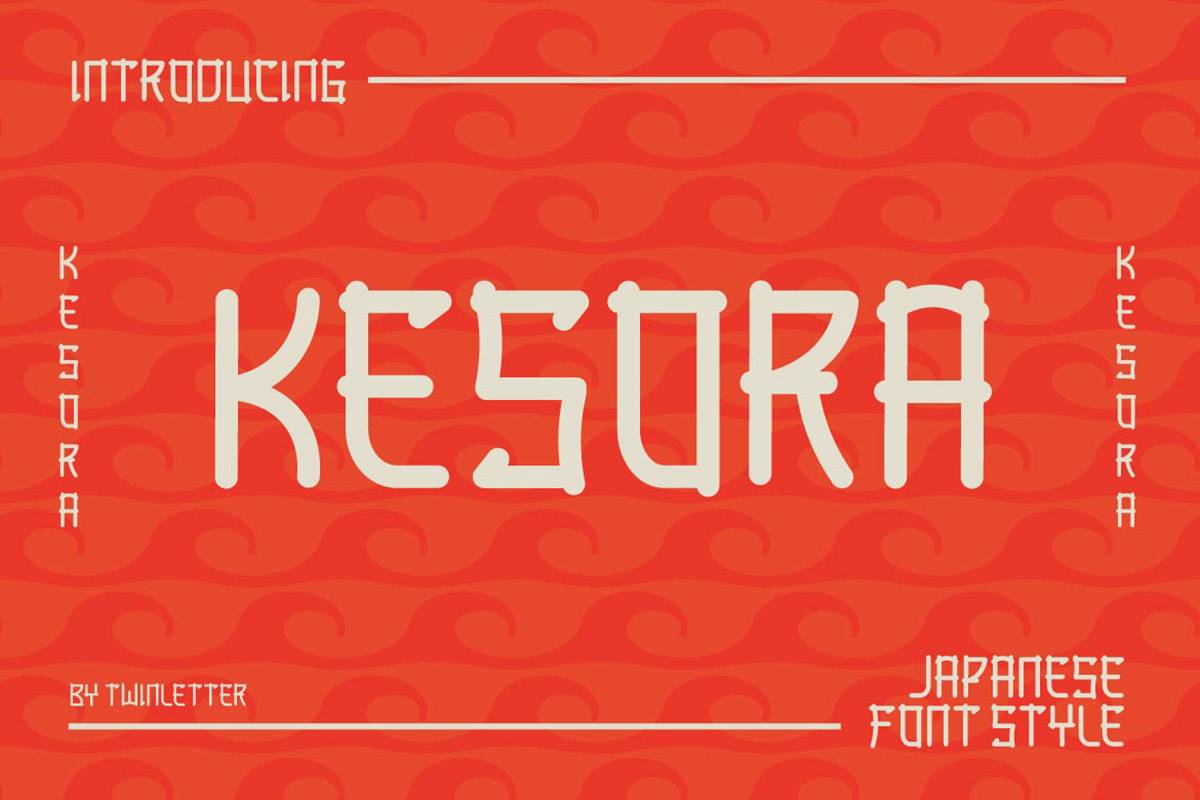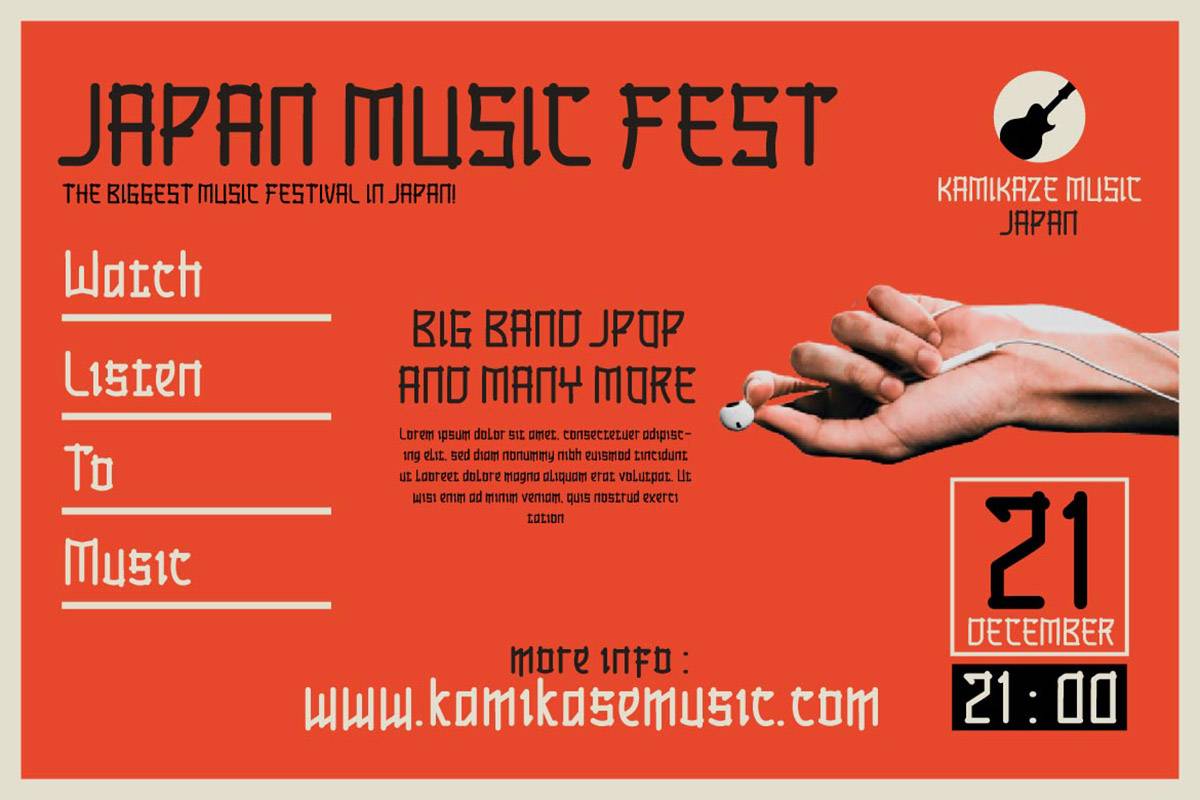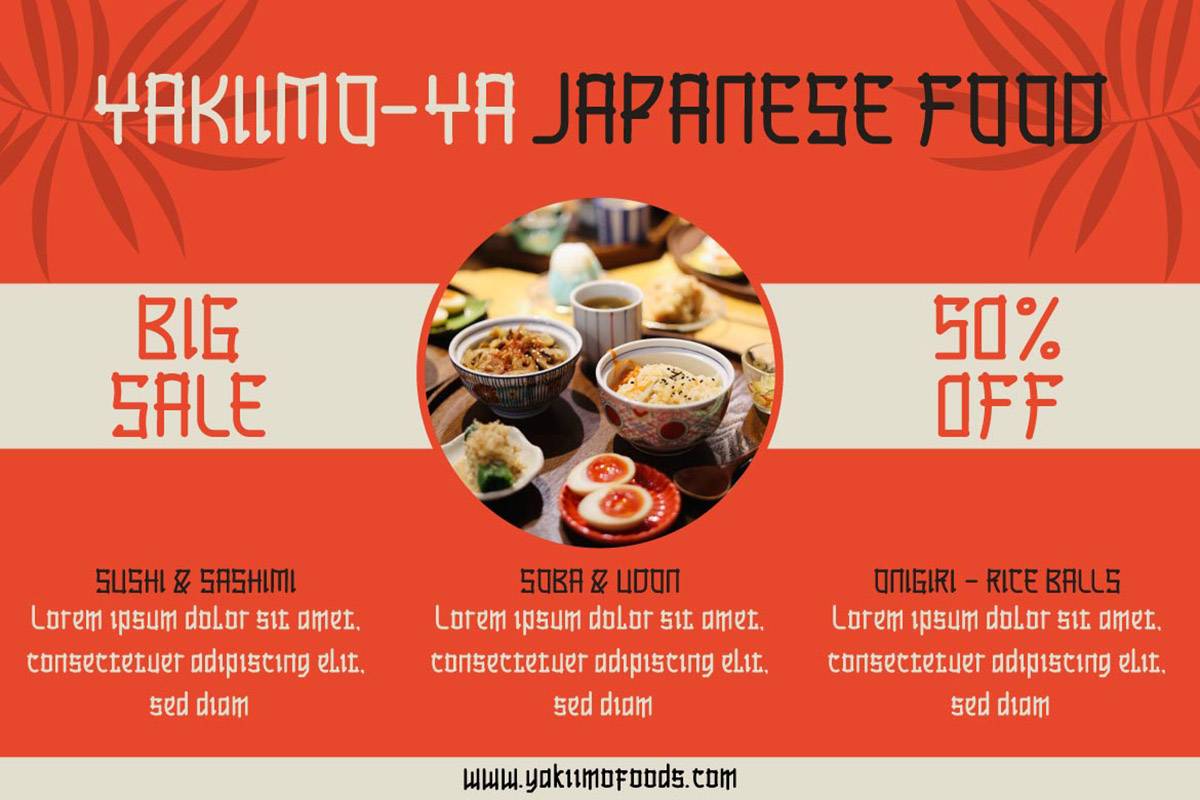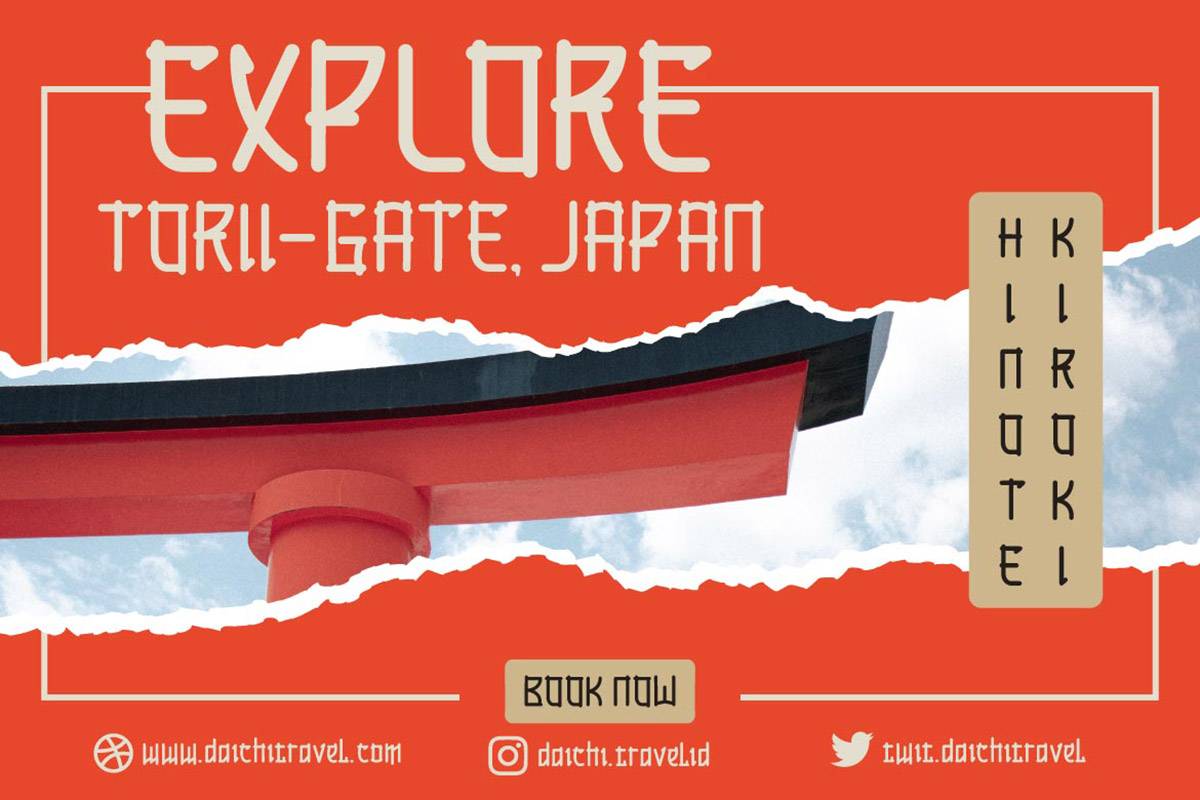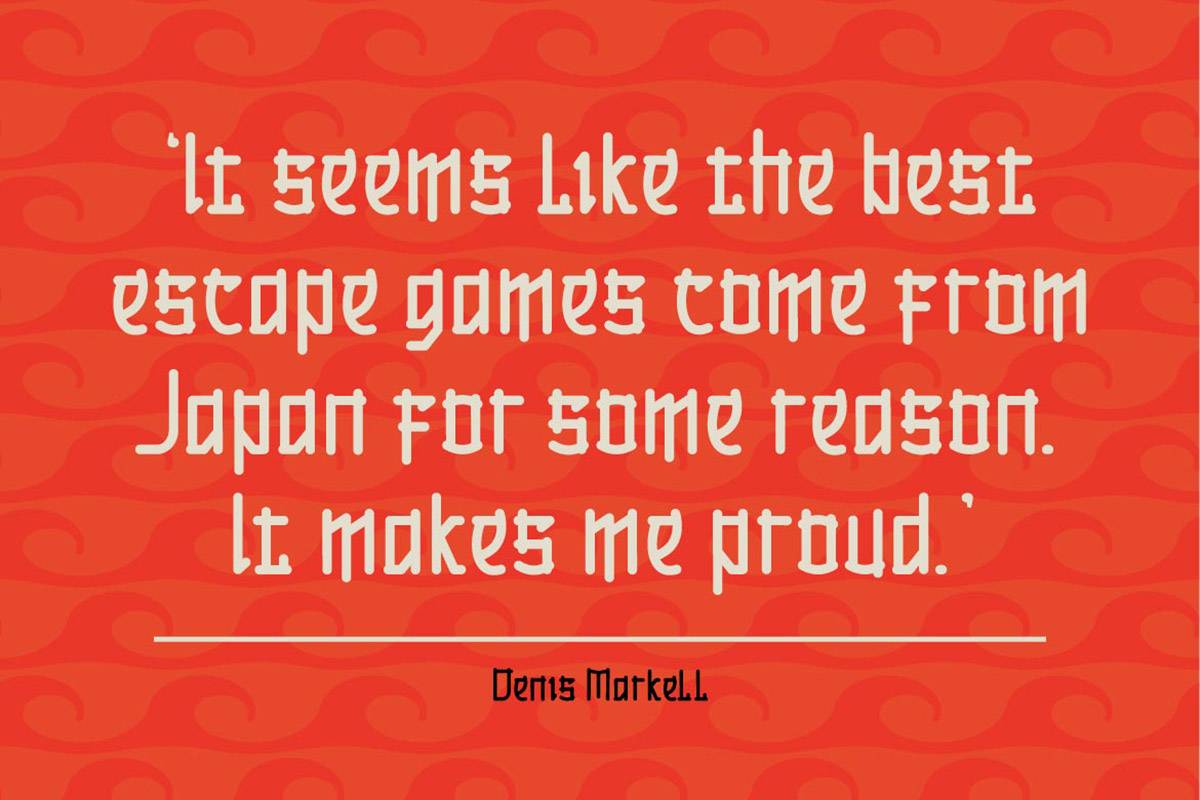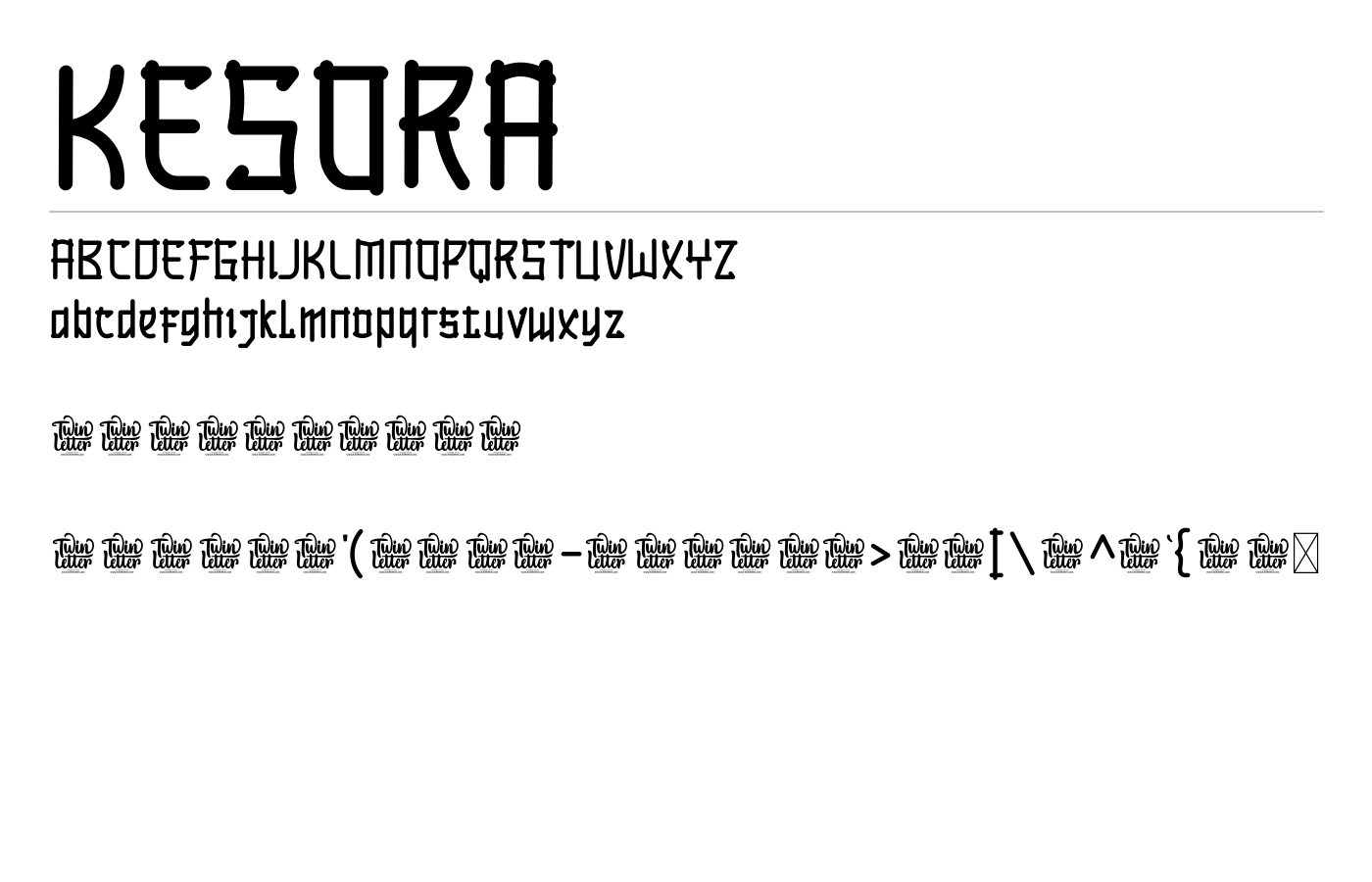
Kesora is a unique sans serif font with a narrow, condensed style characterized by rounded terminals and consistent stroke weight, creating a modern yet playful appearance. Its tall x-height and distinctive letterforms with rounded edges give it a friendly and approachable feel, making it ideal for creative branding, headlines, and display use where a quirky, contemporary look is desired. This font works well for logos, posters, and digital designs that aim to stand out with a stylish, unconventional vibe.
Kesora Font
About Kesora Font